Font licensing is about to change
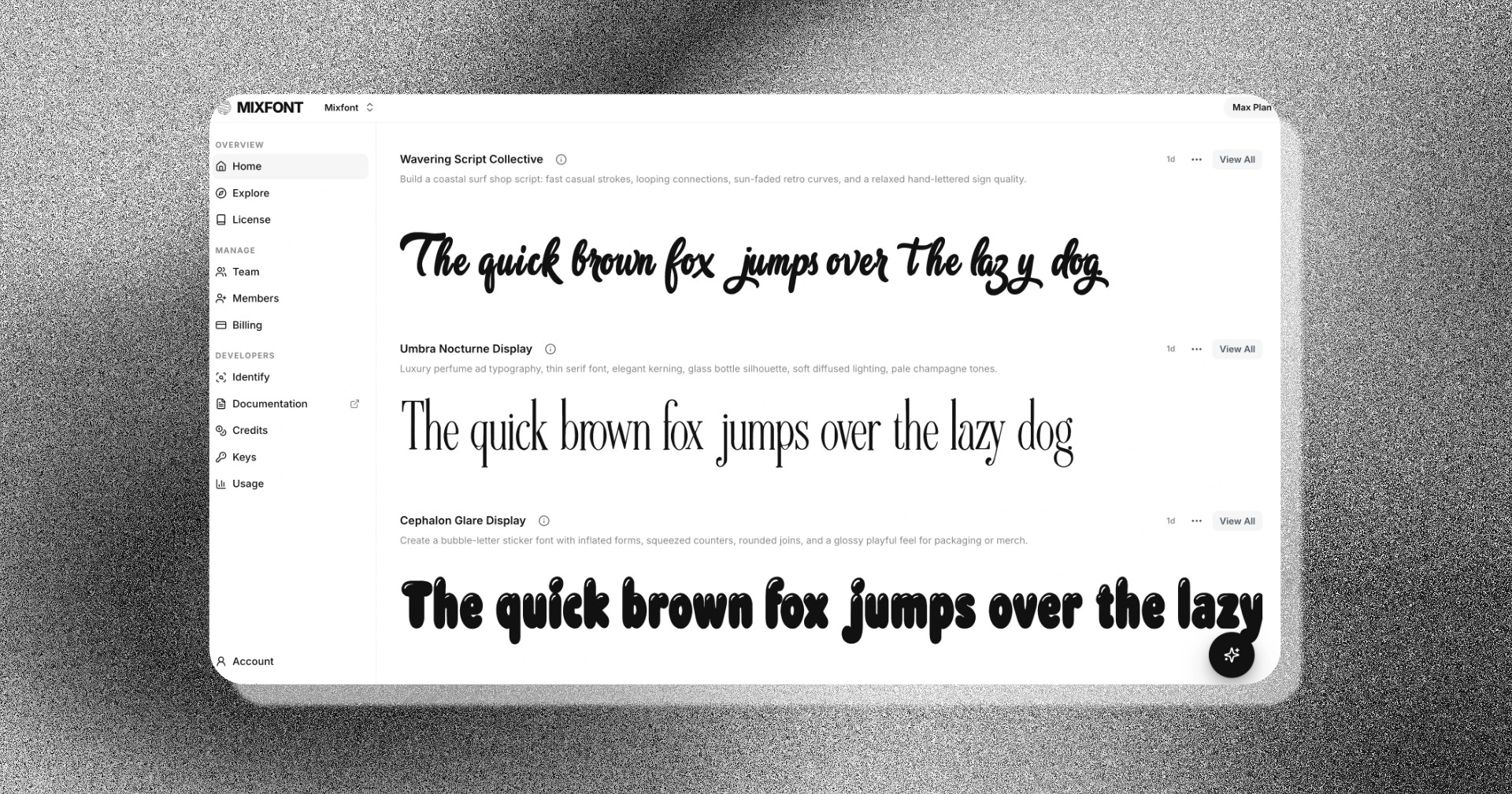
May 20th, 2026 might mark a turning point for the typography world. Today our team at Mixfont is launching our state of the art AI font generation model, and the results are good enough to be used in real-world applications.
I wanted to write this post to share about the capabilities and limitations of the current model, reflect on our progress, and to start a discussion about where we go from here. Our mission is to make the creation and sharing of fonts into the hands of everyone, but along the way we want to be thoughtful about the technology and how it can affect the existing industry. I will also dive into how font licensing works today, and how things might change as more and more people can access AI font generation tools like Mixfont.
How Font Licensing Works Today
Font licensing has traditionally been a very obtuse and complex process controlled by a few large players. And on top of that, the pricing of many fonts might be surprising, not only in terms of cost, but also in terms of policy. If you look at how much fonts cost to license, you might find fonts like Bubble Bobble that starts at 29 USD for a single desktop license, but can easily cost thousands of dollars depending on the use case and scale.
Not only can fonts be expensive, but the terms of their usage can also be complicated as well. They might only be permitted to be used by a certain number of users, or page views, or in certain restricted environments.
Some modern initiaives, like Google Fonts, have made this more accessible and clear under the SIL Open Font License. But a free offering makes it difficult for contributers to make a living, and the result is a limited catalog of fonts that are often overused and aren't quite as unique as other commercial offerings.
What is Mixfont and how does it work?
Mixfont is an AI font generator. With a simple prompt or an image of some text, anyone can now create a unique, custom font that is fully usable and downloadable as a TTF file. Our team has trained a state of the art font generation model on a wide variety of images from across the internet - not just fonts. This allows the model to freely create fonts in a large variety of styles, from clean sans serifs to decorative, experimental display fonts. Then, we've created a pipeline to allow anyone to use this to create a complete font file. The full process takes just a few miiutes.
Up till now, font generation with AI has mostly been experimental. Type designers have used image generation services like Midjourey and Recraft to play with type ideas, but there was no systematic way to create a full font file from a text prompt or image. There have been recent research efforts like VecFusion that also approached this problem, but the results were not quite ready for real-world use. With Mixfont, we have focused on creating a model that can create high quality, usable fonts that can be deployed in real-world applications. We have also made it easy for anyone to use, with a simple web interface.
Here are some results from our model, with the prompts that were used to generate them:
Create a bubble-letter sticker font with inflated forms, squeezed counters, rounded joins, and a glossy playful feel for packaging or merch.
A “forgotten Geocities homepage” font made of blinking GIFs, broken image icons, rainbow dividers, tiny dancing babies, and cursed 1999 web nostalgia.
A high-contrast serif of romantic elegance and dramatic refinement
A clear, rounded font face with modern sans serif design and a friendly approachable design.
A font where each letter is made of up dinosaur parts, like long necks, teeth, claws, and tails.
The model can also be used to create fonts from images. For example, here's a font that was created from the Google logo:
The Google logo image was the inspiration for this font created with AI.
This font was created from the input image of the Coca-Cola logo.
While the model is still not perfect, we believe this is the first publicly available tool that can directly create high quality, embeddable fonts in any number of styles. If you'd like to try the service for yourself, you can visit Mixfont or learn more about our AI font generator.
Limitations
Mixfont is a powerful tool, but it still has it's own limitations. Baselining each letter is difficult, as well as perfecting kerning and spacing between letters. The model can also struggle with creating letters with completely consistent widths across all letters and symbols. Finally, generation times can still be in the 3-4 minute range, which can result in long processing for some users. Our team is aware and actively working on improving these limitations.
What does this mean for font licensing?
Fonts created on Mixfont are created uniquely and every generation is different. Our model is raster based, but doesn't trace or copy any aspects of input images. The model can generate fonts without any input TTF files or direct reference to any specific font. This means that fonts created on Mixfont are not derivative works of any existing fonts, and are instead new, original creations.
Open to feedback from designers and developers
We'd love to hear from designers and developers in the community on how AI font generation can be used in a way that benefits everyone. We realize that this is a nuanced conversation and our approach is to launch technology with respect and thoughtfulness. Our hope is that this is just the beginning of a new approach in the font licensing industry.